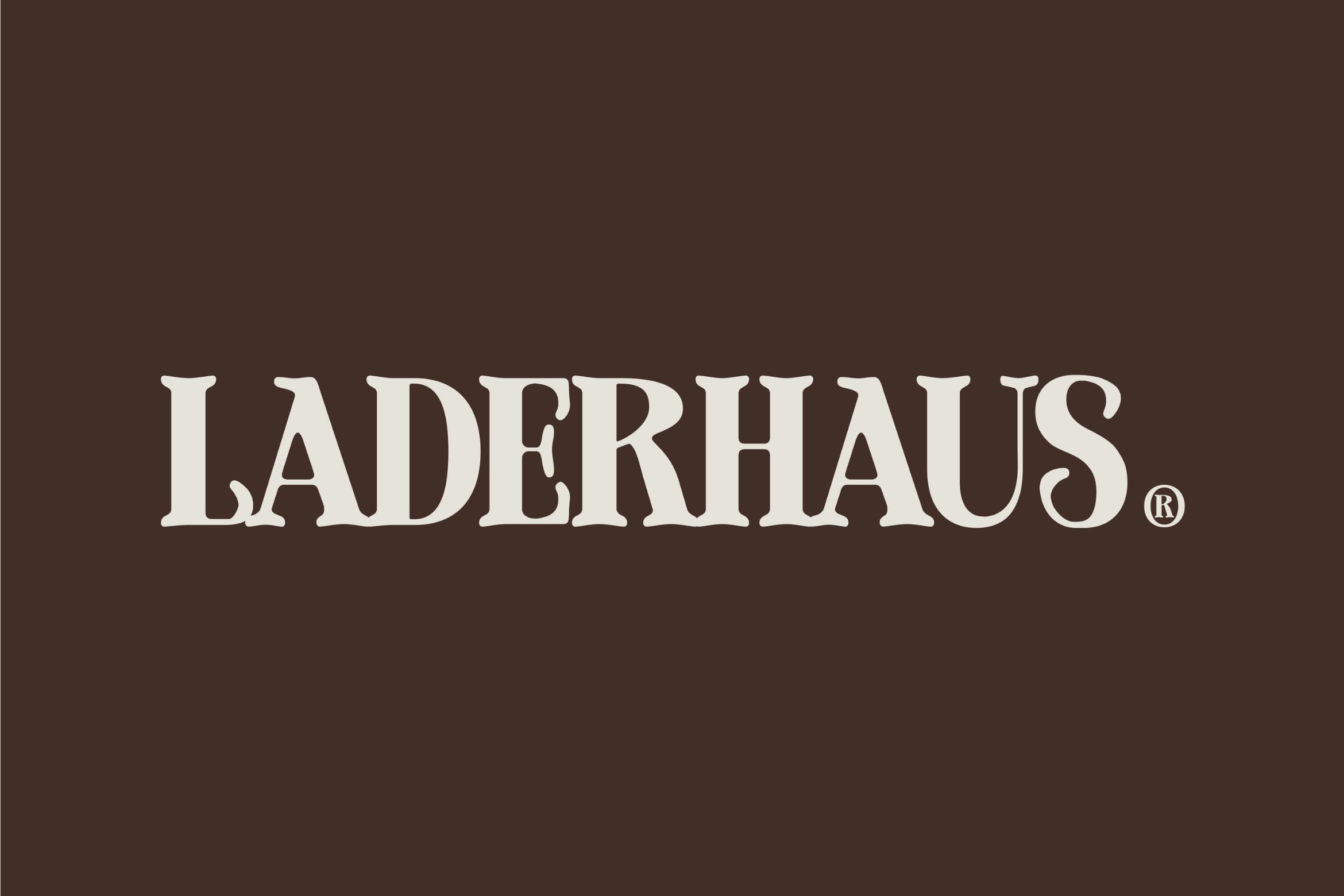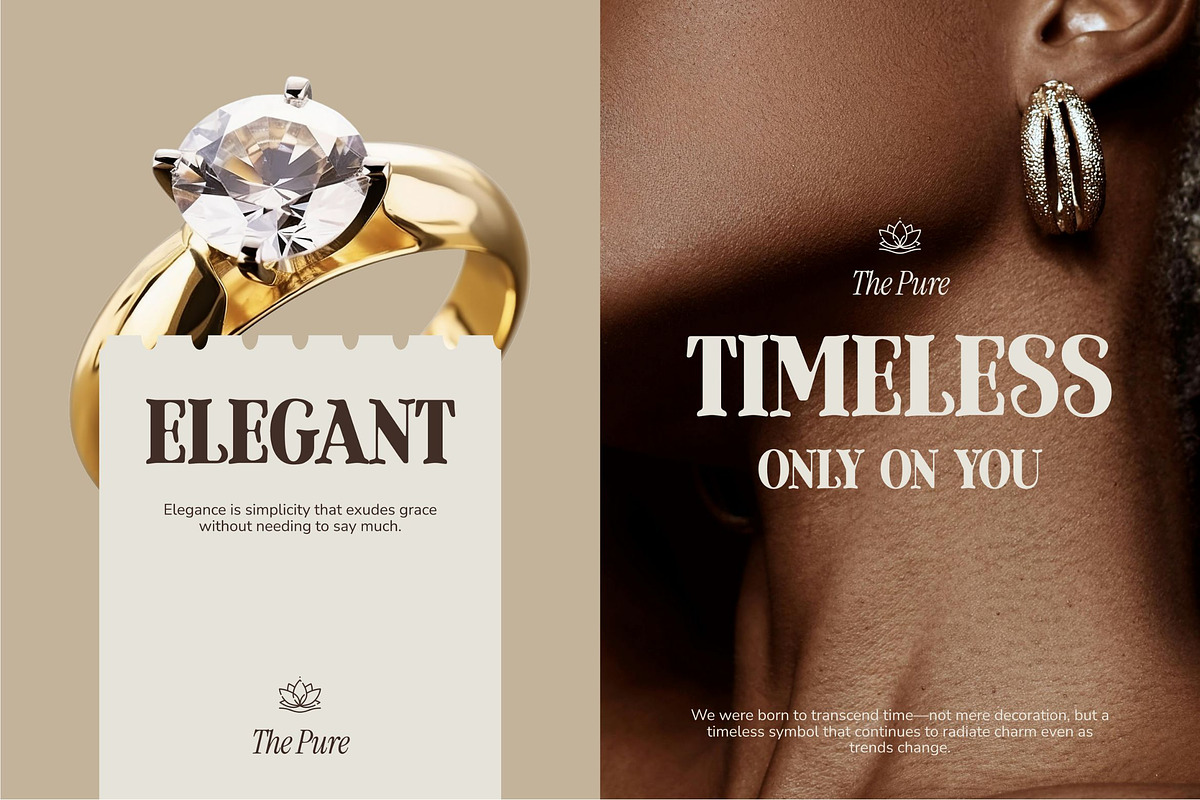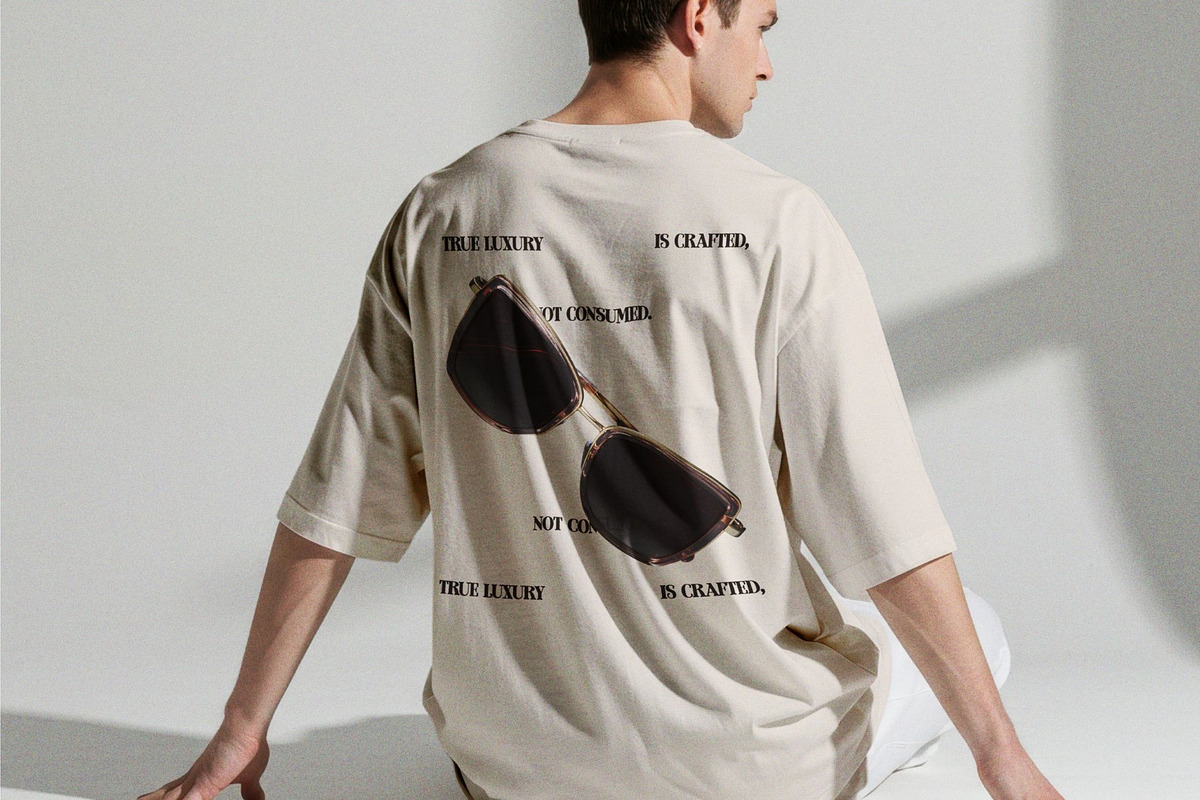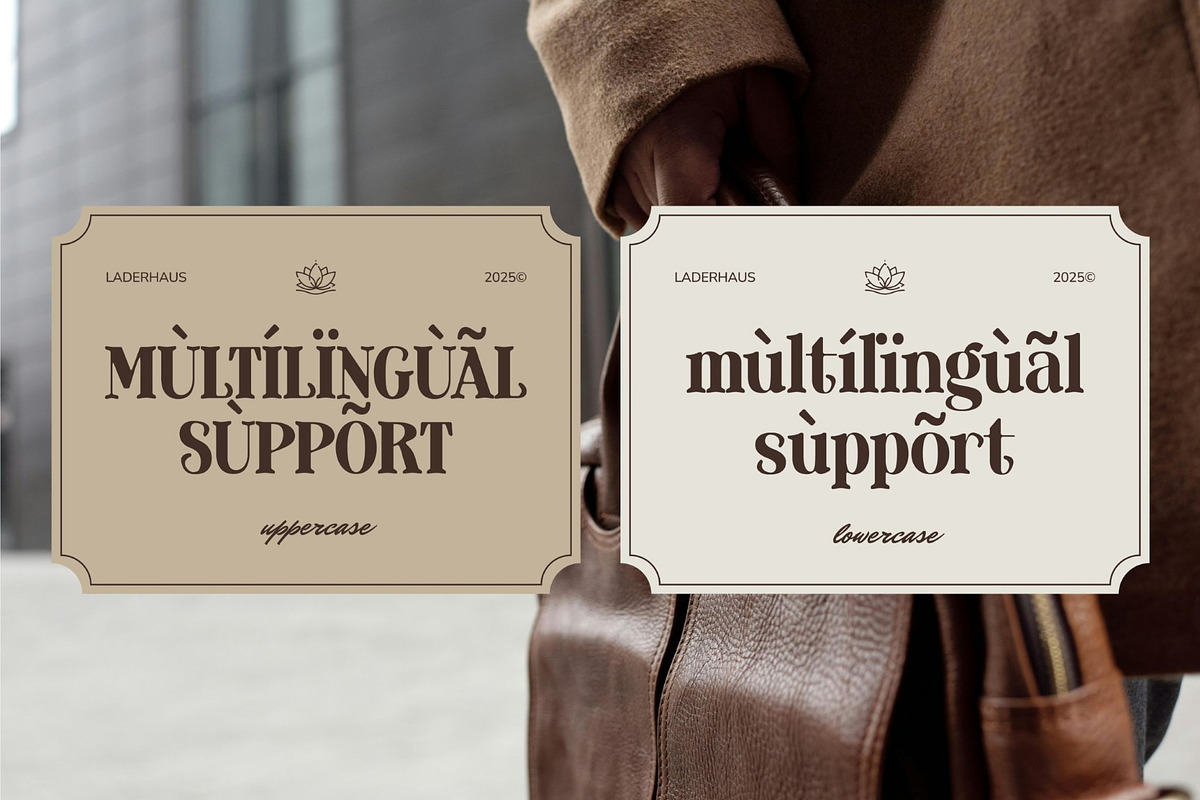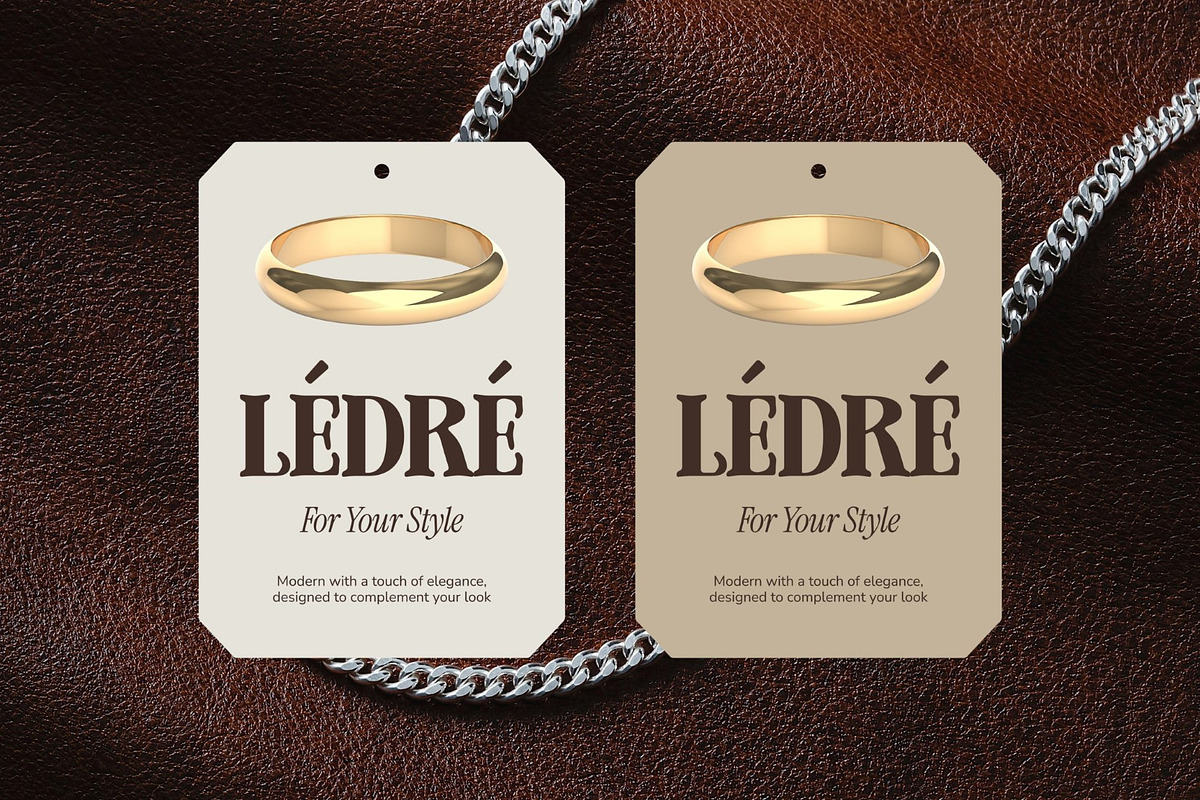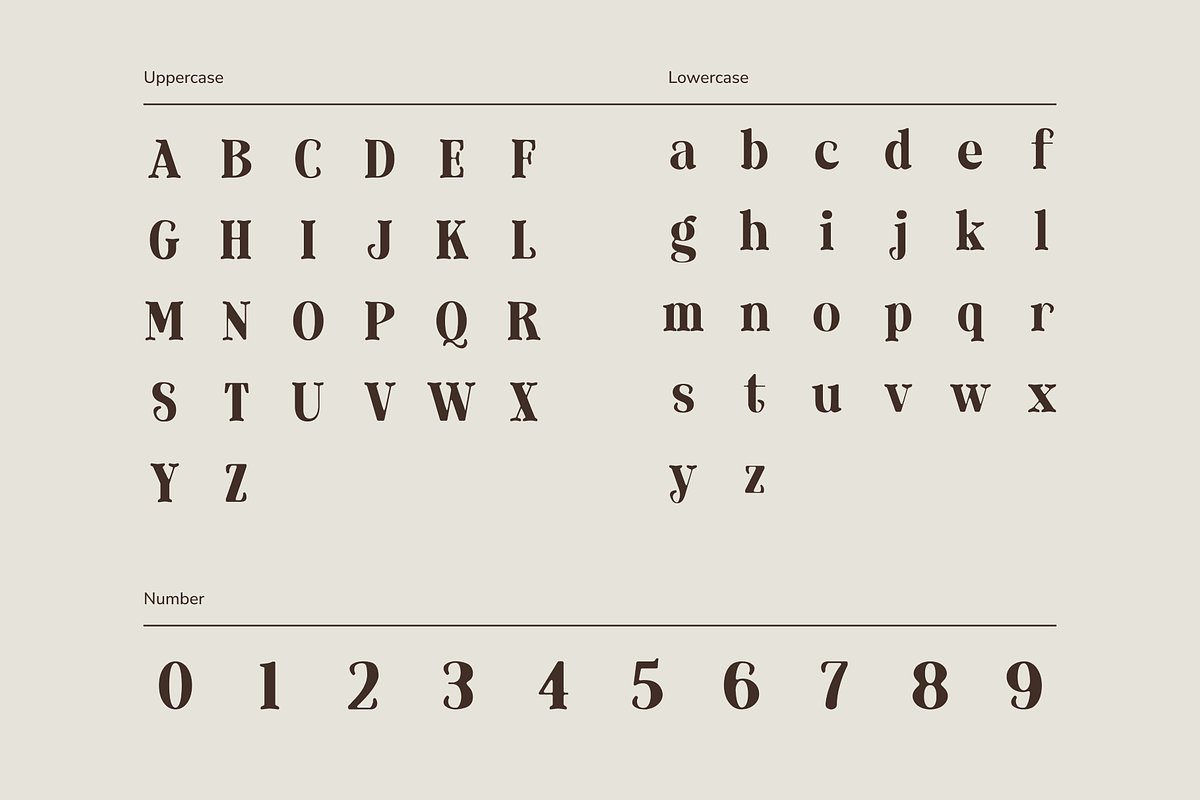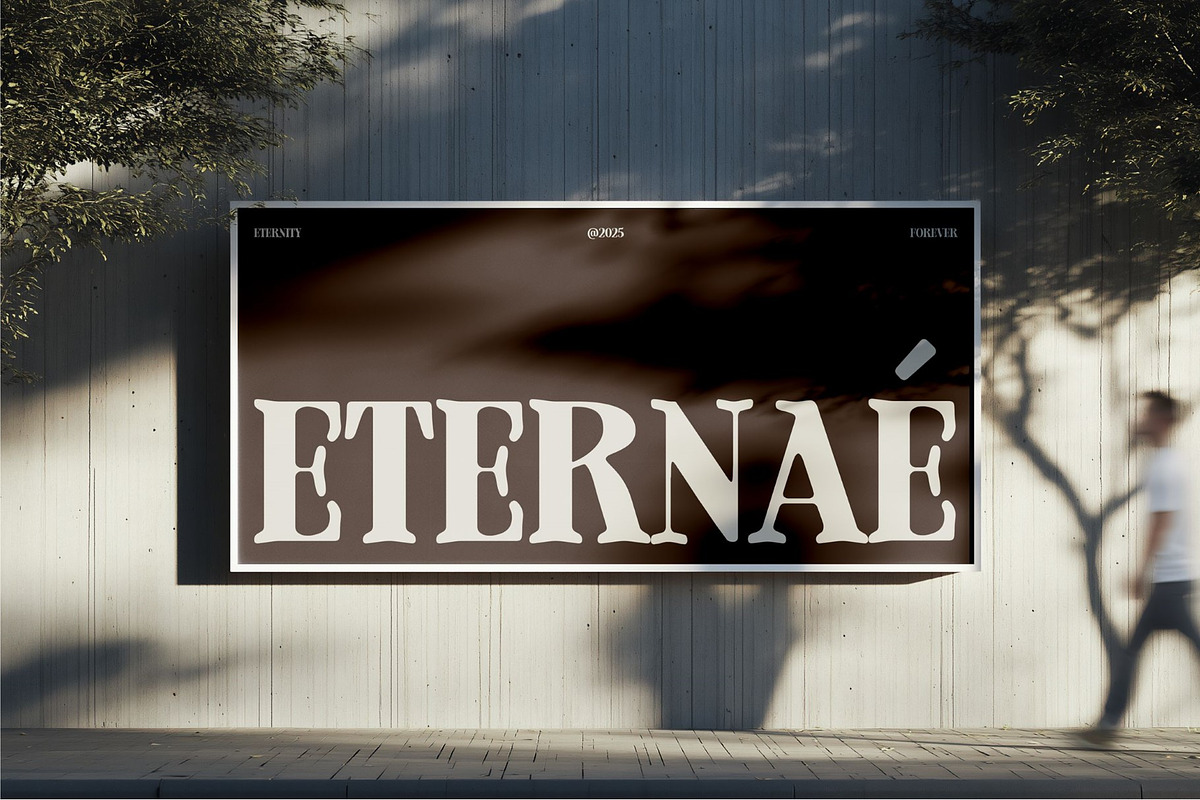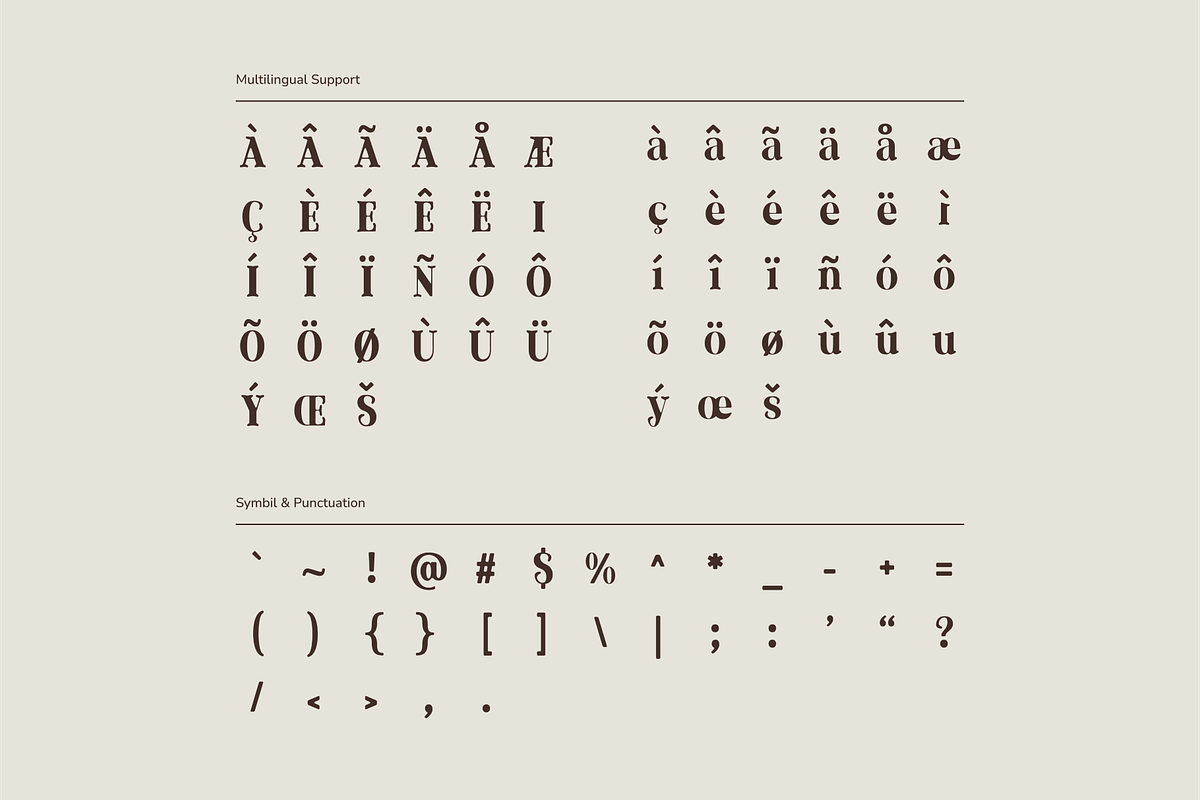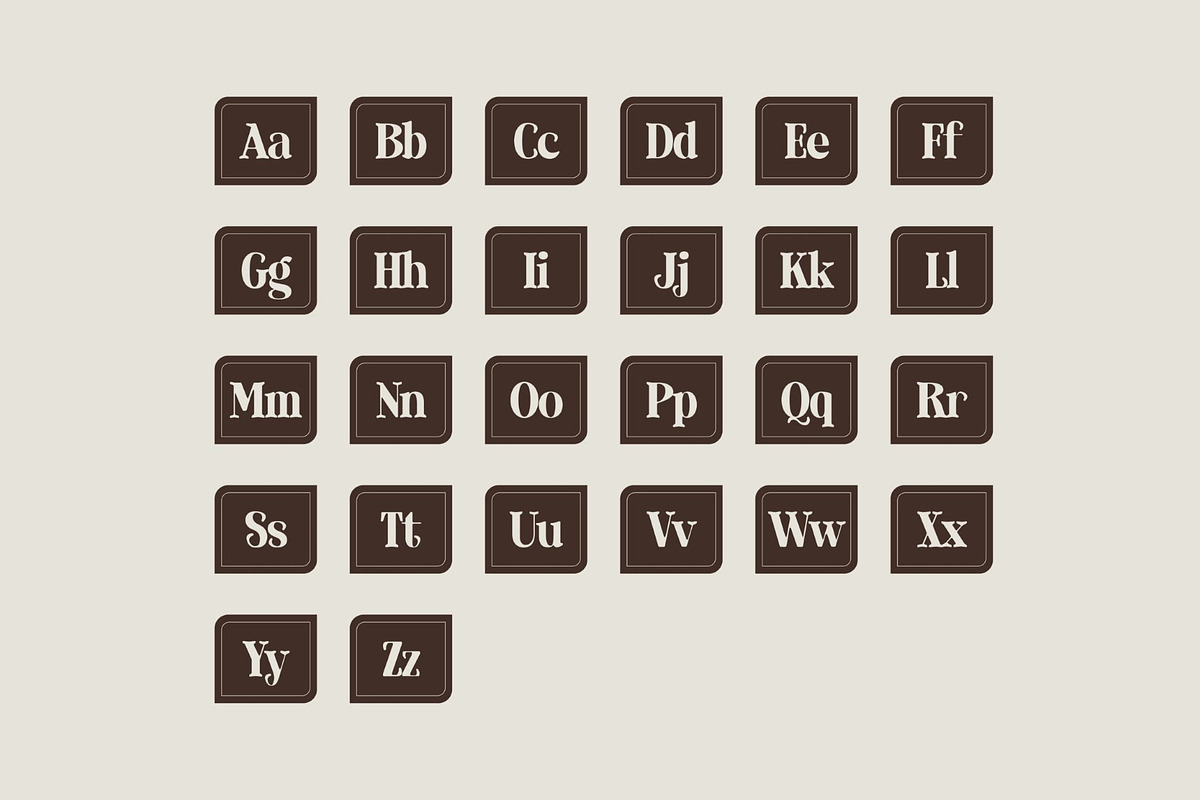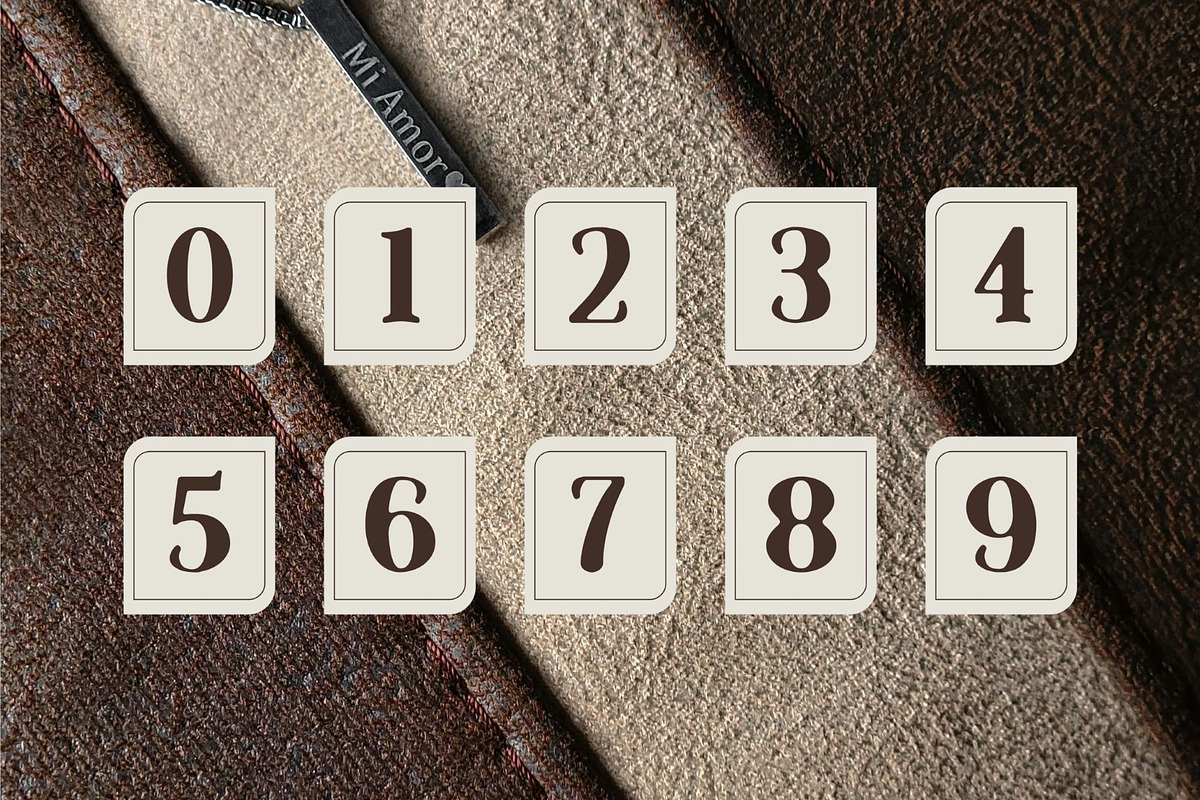
Laderhaus - Display Font
Laderhaus is a bold and vintage-inspired display font with strong character and timeless charm. Perfect for branding, packaging, posters, logos, and editorial design, it combines classic elegance with modern versatility. Ideal for designers seeking a standout typeface that enhances creative projects with style, sophistication, and powerful visual impact.